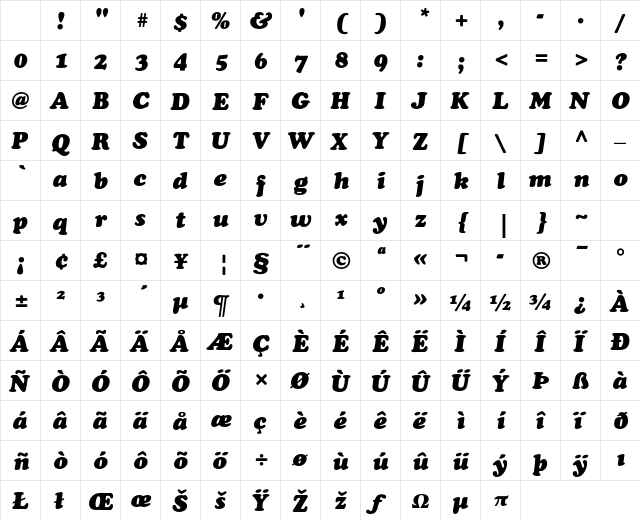
Complete Cooper Std Black Italic glyph index. Displaying only characters natively supported by Cooper Std Black Italic font.
Cooper Std Black is a composed and adaptable typeface that performs quietly and consistently across a wide range of design contexts. The slanted form adds forward momentum and visual energy.
Pro Tip: Use Cooper Std Black for emphasis, pull quotes, and subheadings where its slanted energy can add rhythm to the layout.